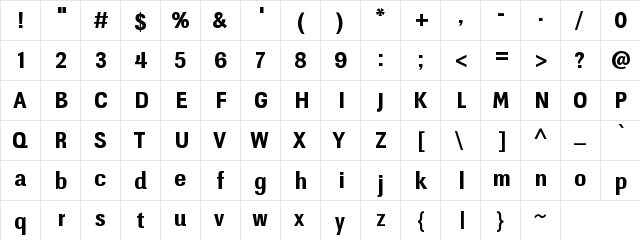
InkberryCondensedBoldA1 Regular
Design Context for InkberryCondensedBoldA1 Typeface
InkberryCondensedBoldA1 is a composed and adaptable typeface that performs quietly and consistently across a wide range of design contexts. Its bold stroke weight gives it real presence on the page. The condensed width makes it efficient for tight spaces without sacrificing legibility.